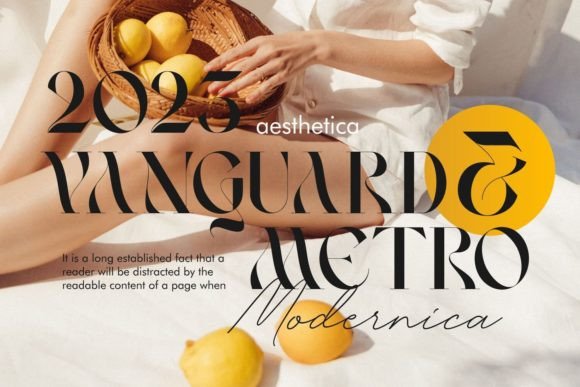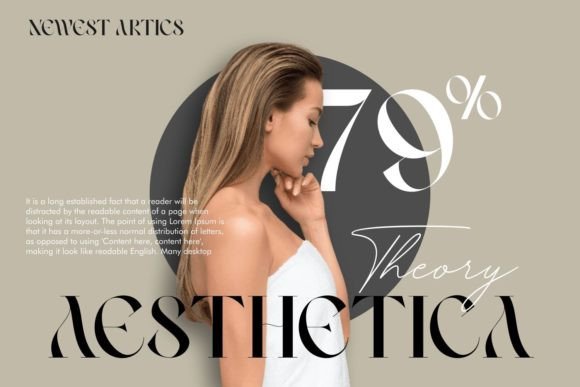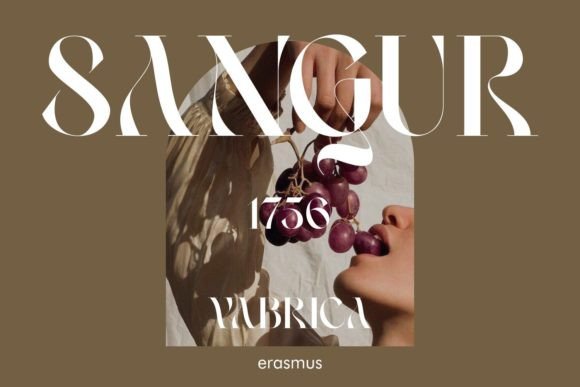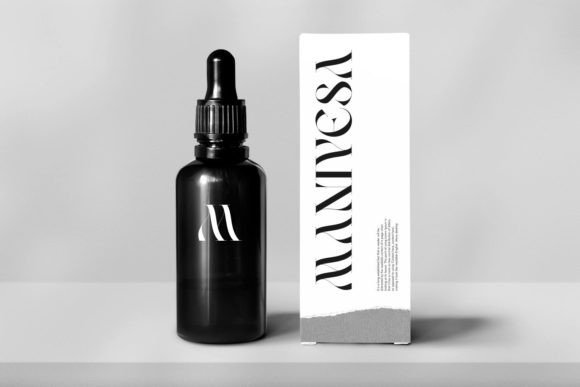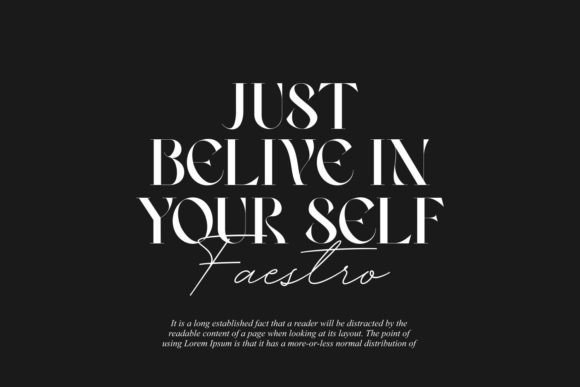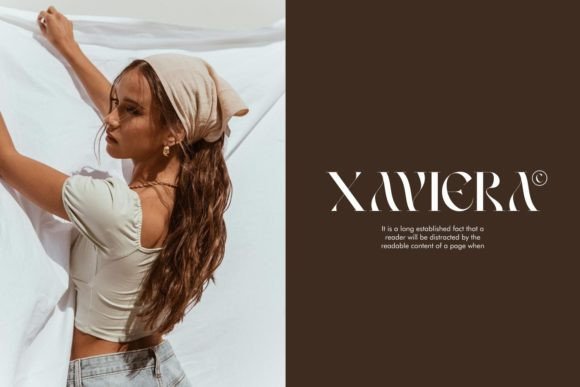
Introduction to Sage Averal Font
SageAveral is an elegant and bold serif font.
Fall in love with its incredibly versatile style and use it to create gorgeous wedding invitations, beautiful stationary art, eye-catching social media posts, and much more .